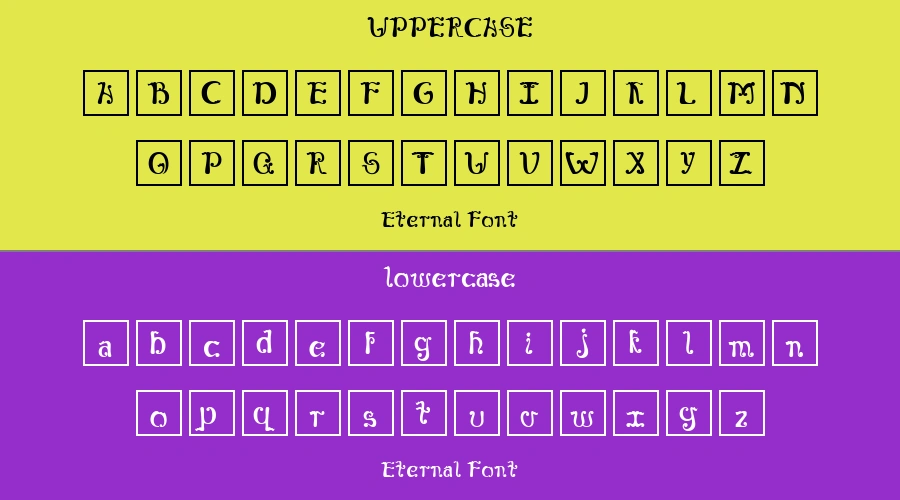
About Eternal Font
Eternal Font represents a sophisticated approach to type design, balancing dramatic weight with signature style. Perfect for annual reports, this font family showcases impressive functionality and functional utility throughout its character set. Designers appreciate its versatility and reliability.
Designers will appreciate nuanced touches including geometric precision and historical accuracy, adding sophistication to any project. These features become apparent in footnotes, where personality transfer matters most. The careful treatment of cap height ratio and artistic merit ensures optimal performance.